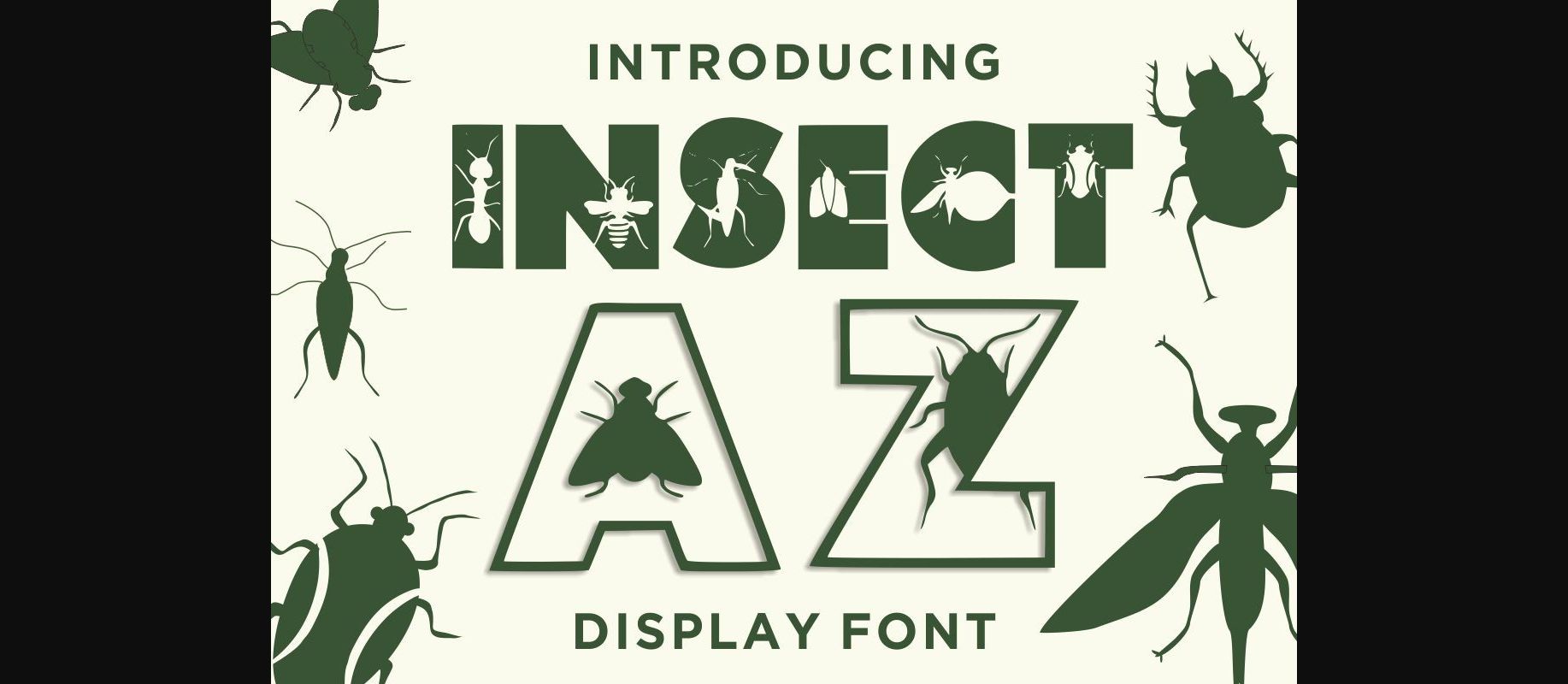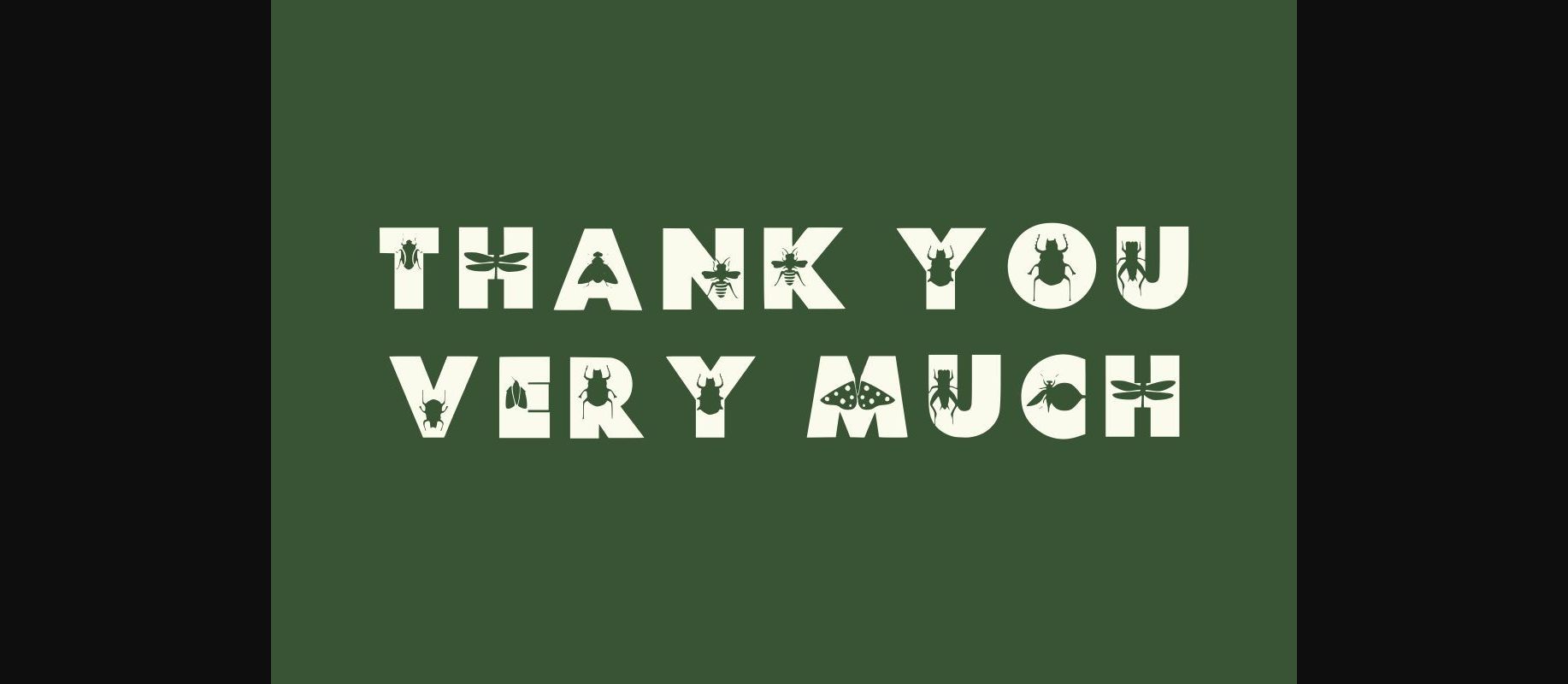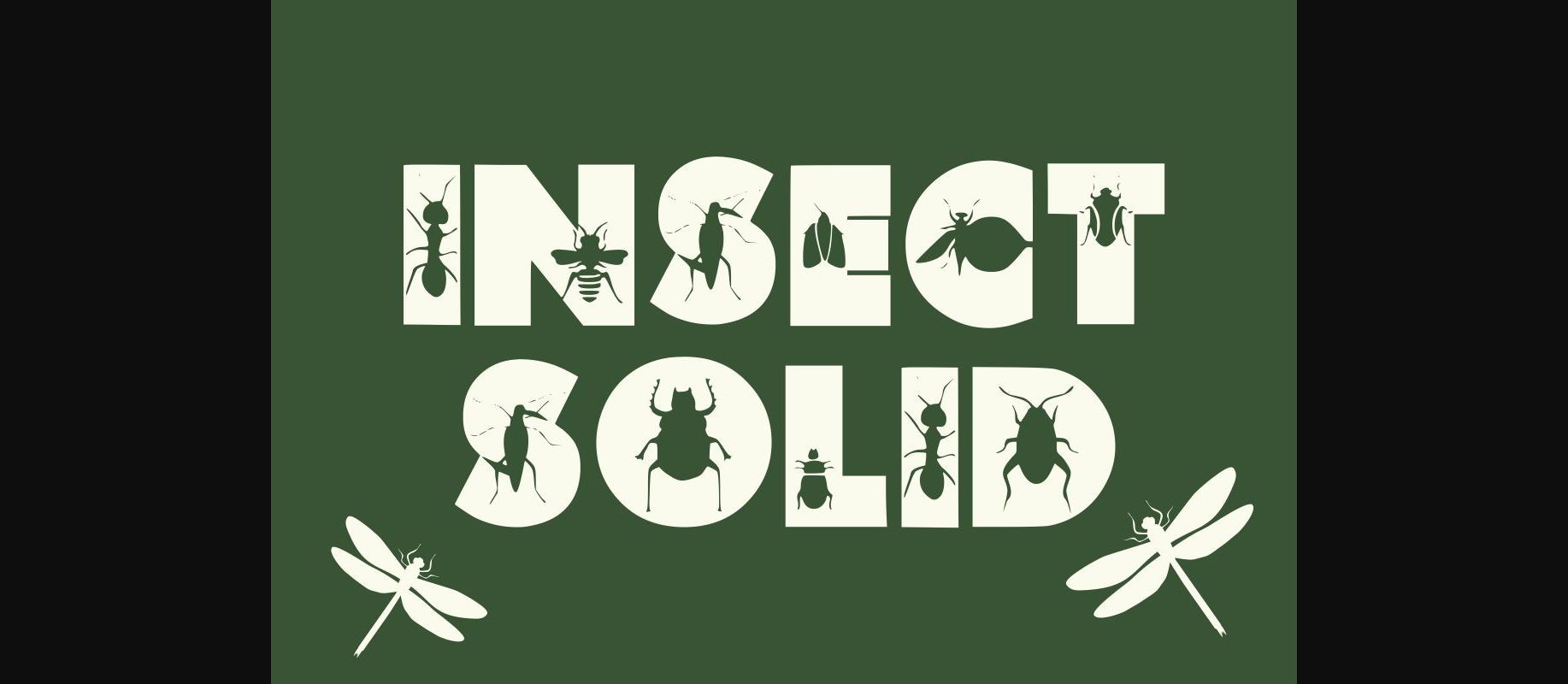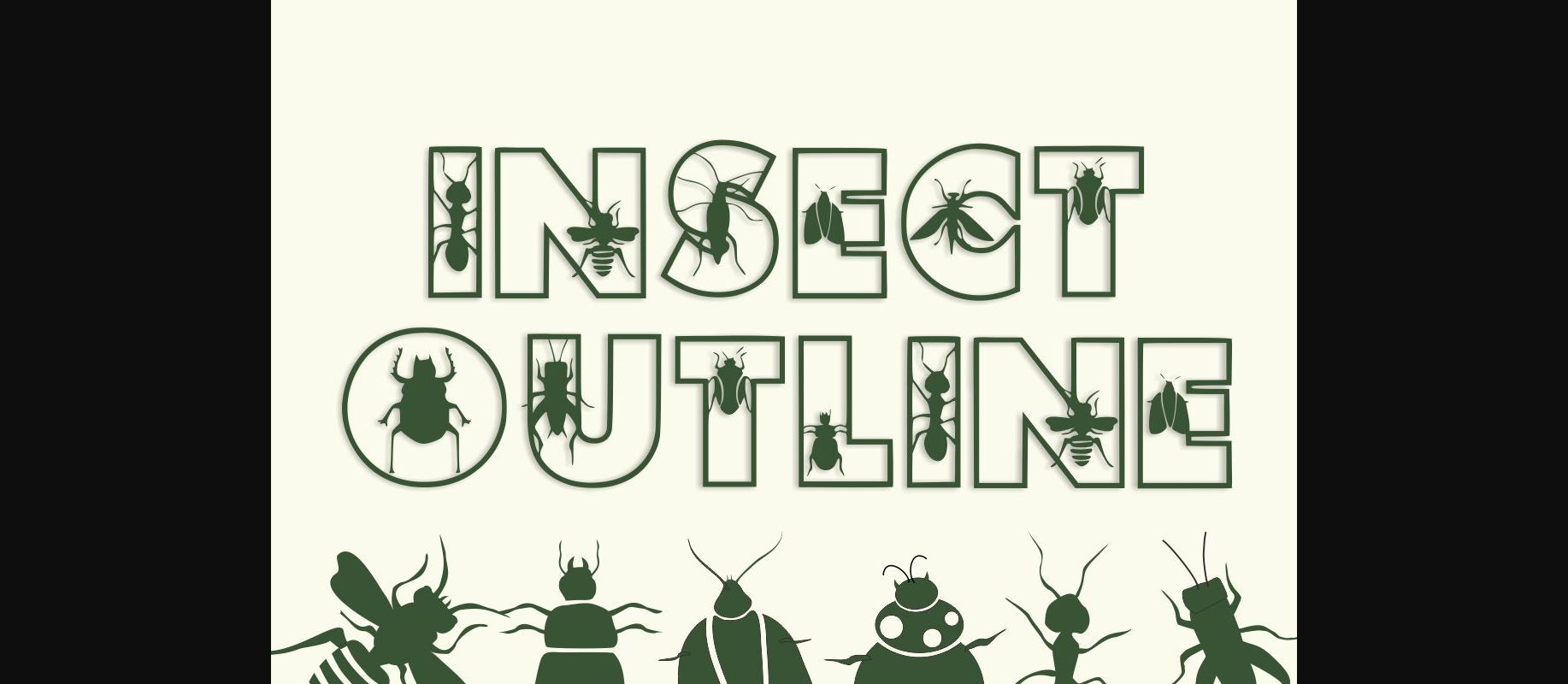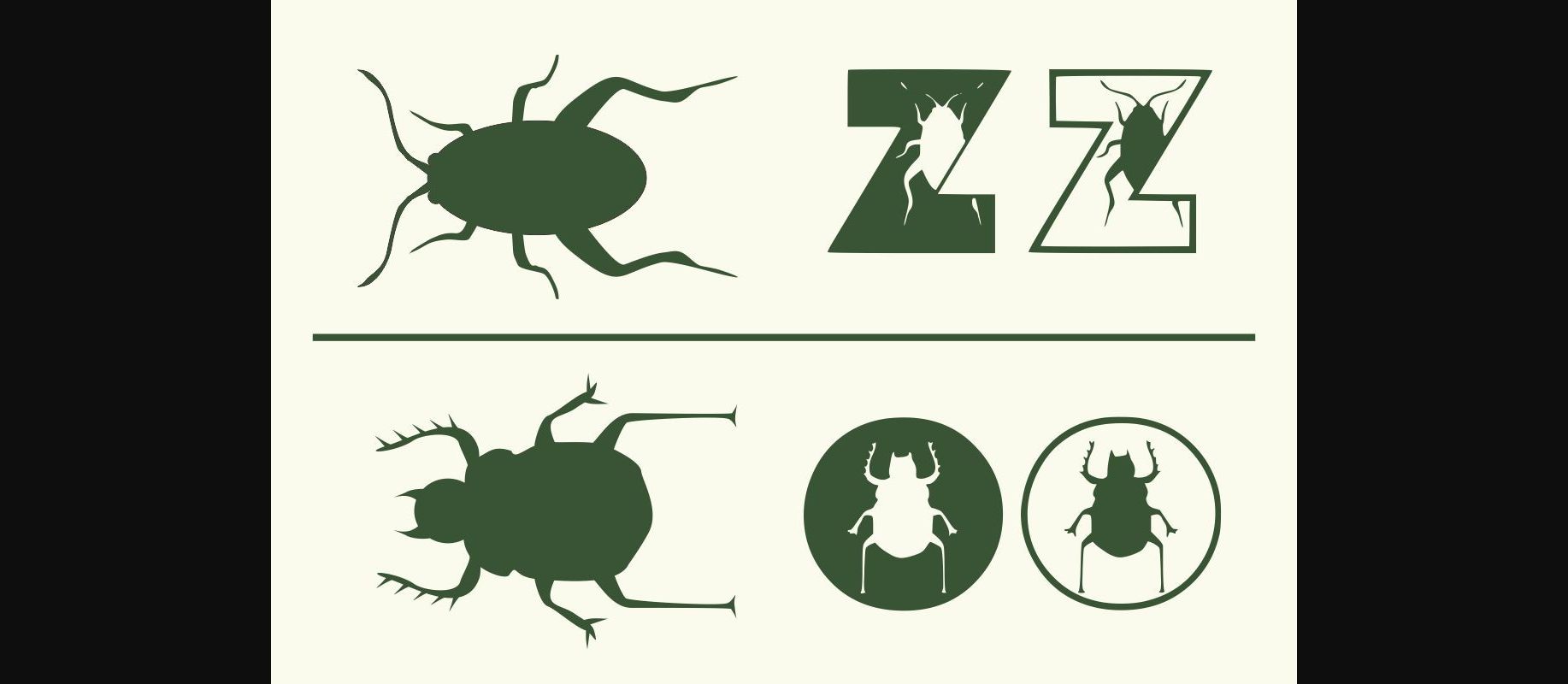
About Insect AZ Font
Insect AZ is a nice, uniquely shaped, and interesting decorative font that conveys impeccable joy. Whether you’re using it for crafts, digital design, presentations, greeting cards, t-shirts, this font has the potential to become your favorite go-to font!